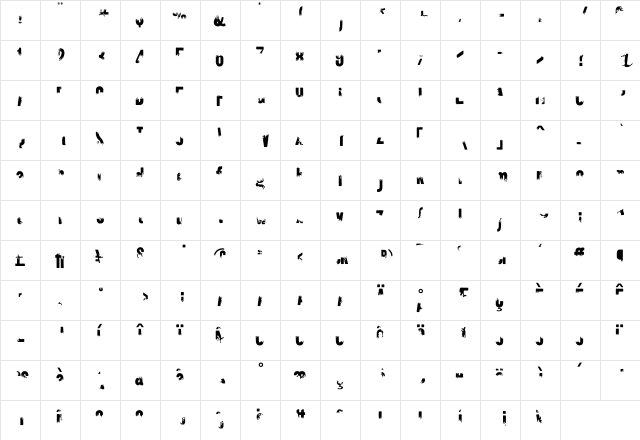
Kipp No5
Design Context for Kipp Typeface
Kipp is a composed and adaptable typeface that performs quietly and consistently across a wide range of design contexts.
Pro Tip: Use Kipp in both headline and body roles to test its range before committing to a single application.